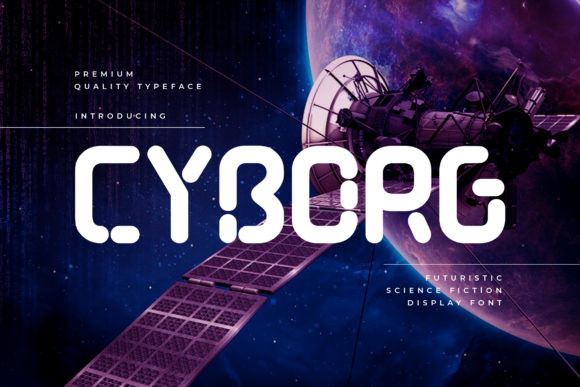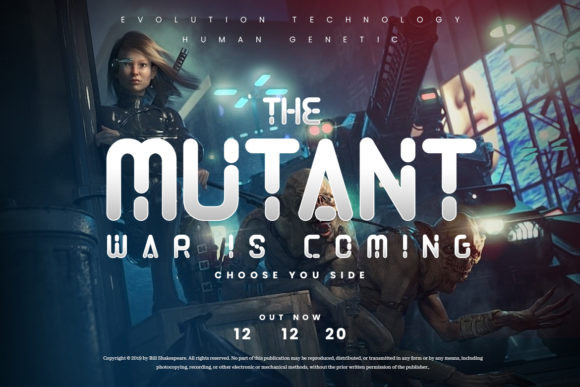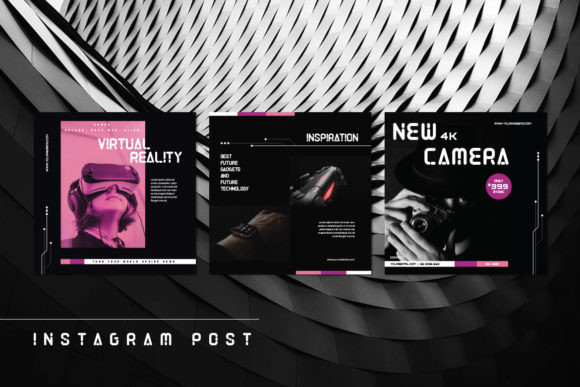
Cyborg Font
Cyborg is a futuristic and bold display font. It celebrates abstract shapes in all their eclectic beauty. Add this font to your creative ideas and notice how it will make them stand out!